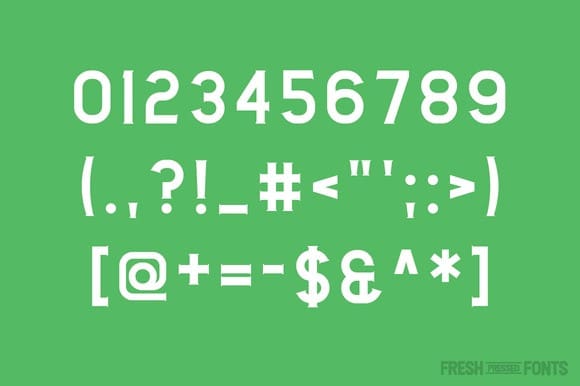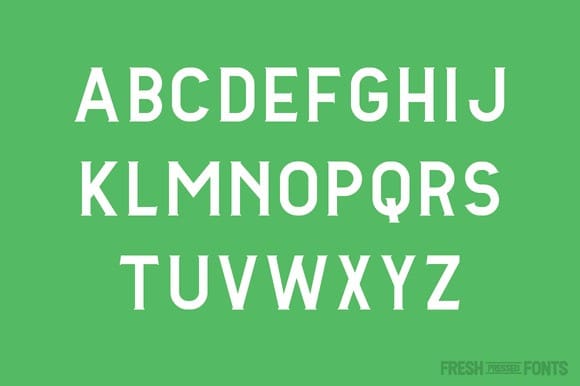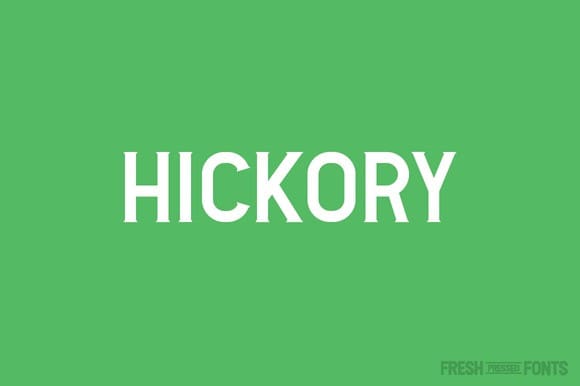
Hickory Font
Hickory Font is meant to be a playful and fun typeface with an uppercase and lowercase character set that shares the same x-height. At the same time, the uppercase character set as a vintage and classy feel that will serve well as a strong display type.